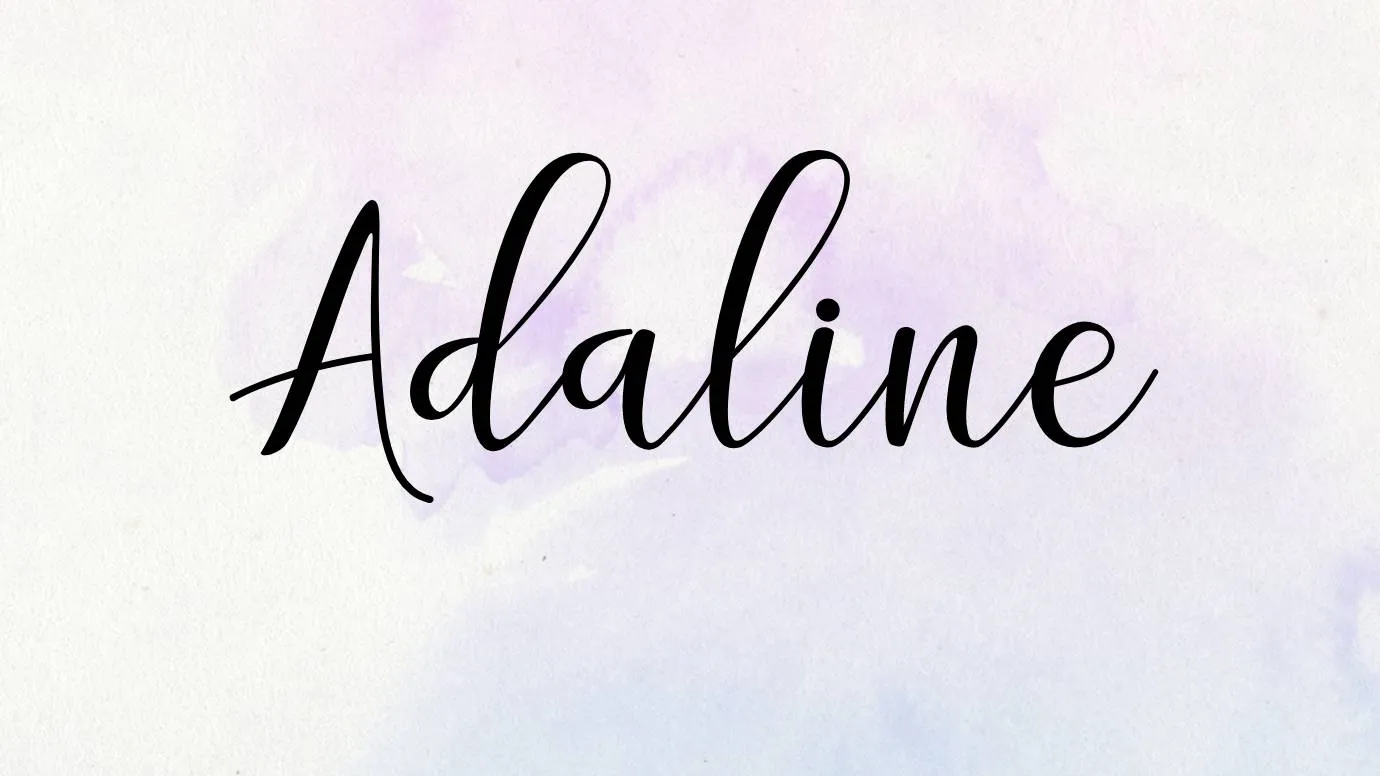
Adaline Font Family
Adaline Font Family was designed by Mr. Letters. Also, this font has long swashes and stylistic alternates. This font family has OTF and TTF formats with unique and eye-catching features and looks.
This font family has many similar glimpses fonts such as the ohio script font. Due to its fantastic look, many designers use and apply this font in advanced custom fields for different types of software designing and other designing purposes.
Adaline Font